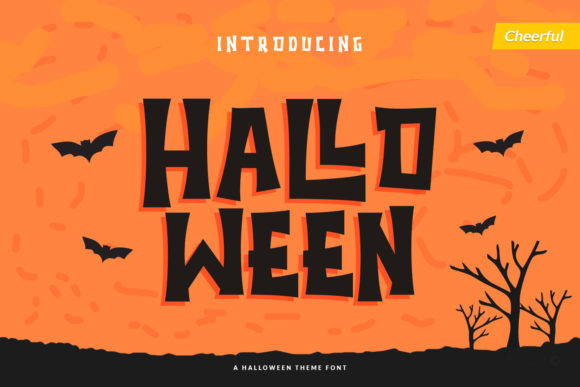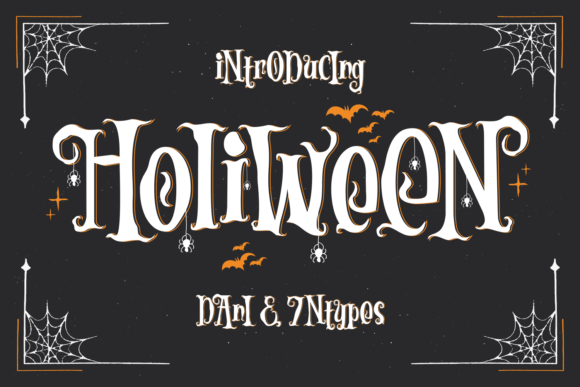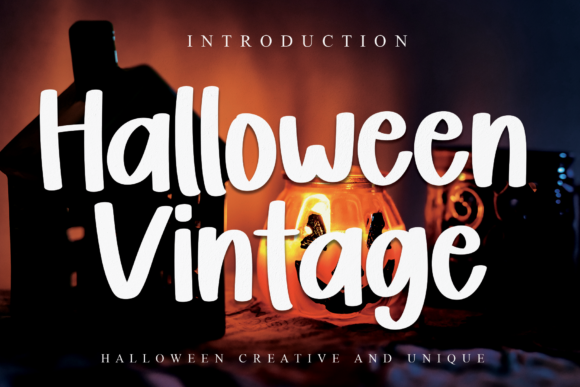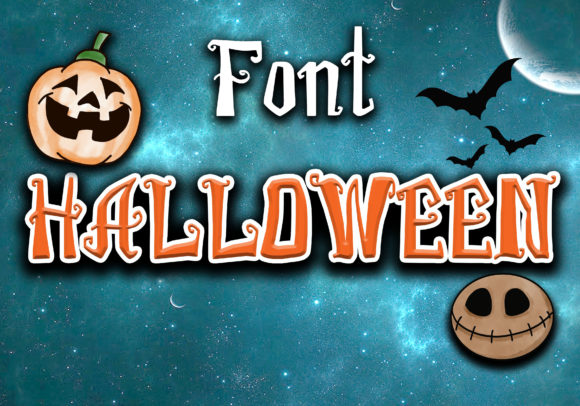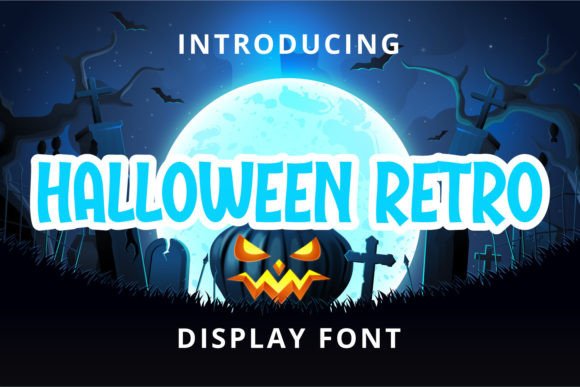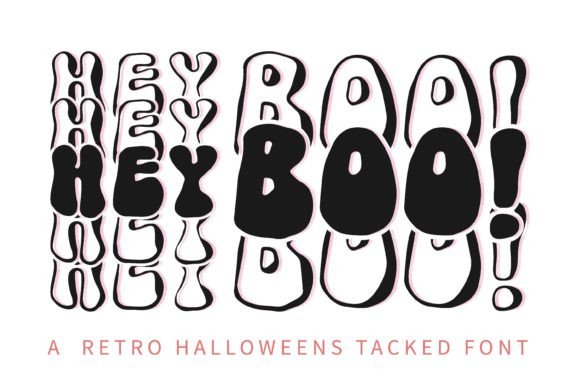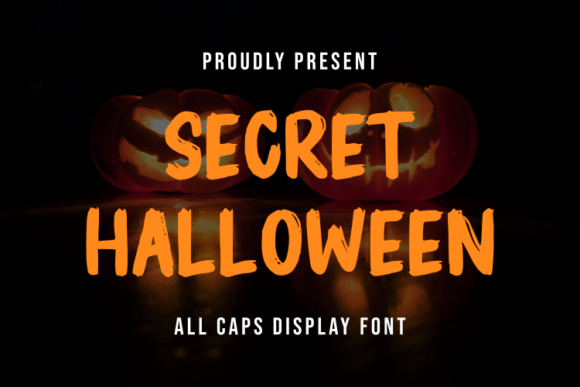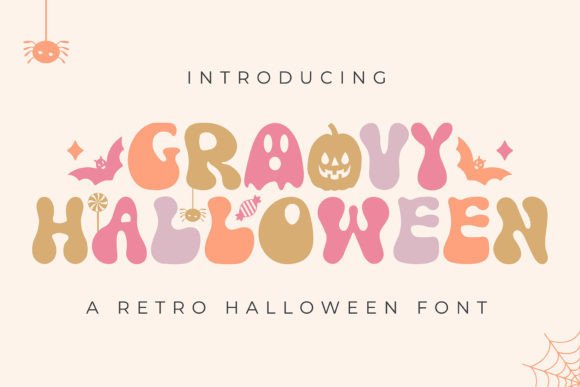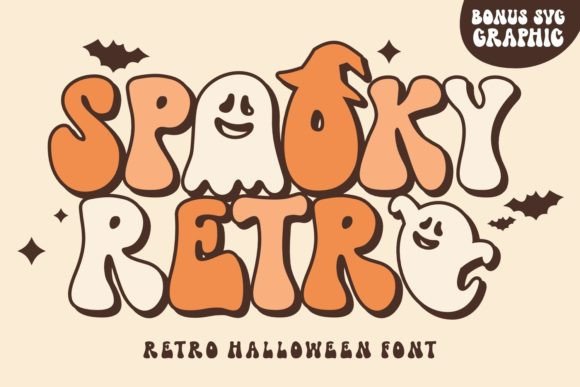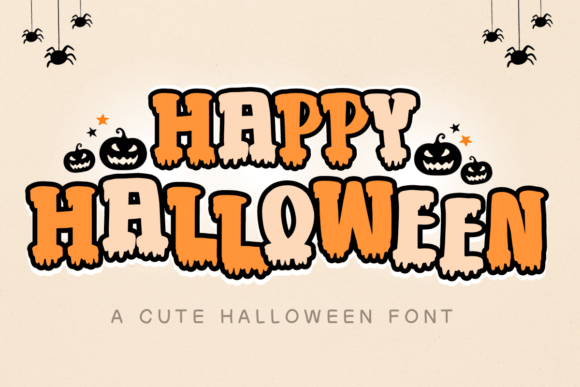
19 Creepy Fonts Perfect for Halloween Designs
Creepy Fonts & Halloween Typography
Discover creepy and spooky fonts for Halloween invitations, posters, party decorations, social media graphics, stickers, apparel, packaging, crafts, and seasonal branding. These eerie typefaces can add mystery, darkness, fun, and Halloween atmosphere to your designs.
Why creepy fonts work so well for Halloween
Halloween typography gives designers a chance to move beyond ordinary lettering and create a specific atmosphere. Creepy fonts can make a design feel mysterious, spooky, vintage, playful, haunted, or dramatic. From bold Halloween display styles to retro and whimsical lettering, the right font can immediately establish the mood of a seasonal project.
How to Choose a Creepy Halloween Font
Start by deciding what kind of Halloween mood you want to create. A classic spooky font can work well for haunted-house graphics and Halloween parties, while a retro or groovy style can create a more nostalgic seasonal look.
Also consider where the typography will appear. Large display fonts are excellent for posters, shirts, invitations, and social graphics, while simpler styles may work better for smaller labels or supporting text. Keep the surrounding design relatively simple when the font already has a strong personality.
19 Creepy Fonts for Halloween Designs
01 · Classic Halloween
Halloween Font — Tedha Studio
Halloween Font by Tedha Studio is a strong seasonal display choice for creating an unmistakable Halloween atmosphere. Its dedicated Halloween character makes it suitable for designs where the typography needs to communicate the theme immediately.
Use it as a prominent headline or title and let the surrounding graphics provide the additional spooky details.
02 · Spooky Display
Halloween Font — Umitype
Halloween Font by Umitype is made for seasonal typography with a distinctly spooky direction. It can give Halloween headlines and short phrases a dramatic visual presence.
The font works especially well when paired with dark, atmospheric illustrations or simple Halloween symbols.
03 · Decorative Halloween
Halloween Font — Color Alphabet
Halloween Font by Color Alphabet offers a more decorative direction for seasonal lettering. It can add extra visual interest to Halloween compositions where typography needs to feel like part of the illustration.
04 · Spooky Lettering
Halloween Font — sakwarin art
Halloween Font by sakwarin art is a seasonal display option for designs that need a recognizable spooky personality. It can help transform ordinary Halloween phrases into stronger visual focal points.
05 · Halloween Display
Halloween Font — Trim Studio
Halloween Font by Trim Studio brings a focused seasonal character to display typography. It is useful for creating strong Halloween titles without needing excessive decorative elements around the lettering.
06 · Seasonal Typography
Halloween Font — Nongyao
Halloween Font by Nongyao is a compact seasonal choice for Halloween-themed lettering. It can be used for short titles, labels, and decorative phrases where a spooky mood is important.
07 · Creepy Display
Halloween Font — Khim08Studio
Halloween Font by Khim08Studio is designed around the Halloween theme and can give seasonal headlines a darker visual direction. It works well when the typography needs to be noticeable without taking over the entire composition.
08 · Halloween Graphics
Halloween Font — JL Digital Art
Halloween Font by JL Digital Art is a seasonal display style suited to short Halloween messages and graphic compositions. It can work as a decorative focal point in themed artwork.
09 · Spooky Typography
Halloween Spooky Font — Farz Studio
Halloween Spooky Font by Farz Studio is a natural fit for designs that need a clearly spooky seasonal atmosphere. Its name and intended theme make it particularly suitable for Halloween display work.
10 · Halloween Display
Holiween Font
Holiween Font offers a playful seasonal direction for Halloween projects. It can help make themed headlines feel more festive and expressive while keeping the Halloween identity clear.
11 · Mysterious Halloween
Secret Halloween Font
Secret Halloween Font is suited to designs that lean into mystery and seasonal intrigue. The Halloween-focused name makes it an easy option for titles where the atmosphere should feel mysterious and themed.
12 · Fantasy Halloween
Fantasia Halloween Font
Fantasia Halloween Font can bring a more imaginative direction to seasonal typography. It is suitable for Halloween designs that combine spooky themes with fantasy-inspired visual elements.
13 · Retro Spooky
Retro Spooky Font
Retro Spooky Font combines a Halloween theme with a nostalgic visual direction. It is a useful choice for seasonal designs that want something different from traditional horror-inspired typography.
How many fonts should I use in a Halloween design?
One main Halloween display font plus one simple supporting font is often enough. Using too many decorative typefaces can make the composition difficult to read and reduce the impact of the main Halloween lettering.
Can I combine a creepy font with a simple font?
Yes. This is one of the easiest ways to create hierarchy. Use the creepy font for the main title and a clean, readable font for supporting information such as dates, descriptions, or event details.